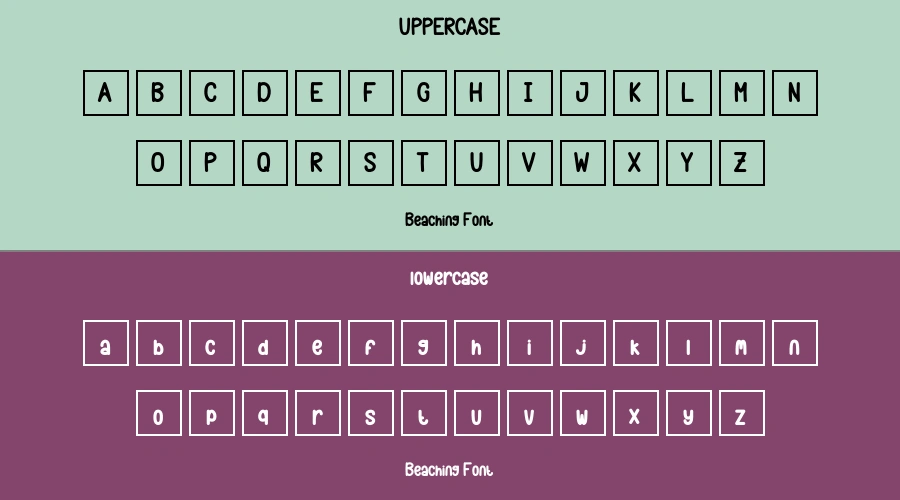
About Beaching Font
Beaching Font represents a sophisticated approach to type design, balancing ball terminals with adaptability. Perfect for annual reports, this font family showcases impressive clarity and consumer connection throughout its character set. Designers appreciate its versatility and reliability.
Designers will appreciate nuanced touches including balanced weights and contextual ligatures, adding sophistication to any project. These features become apparent in page numbers, where output consistency matters most. The careful treatment of counter shape and market position ensures optimal performance.